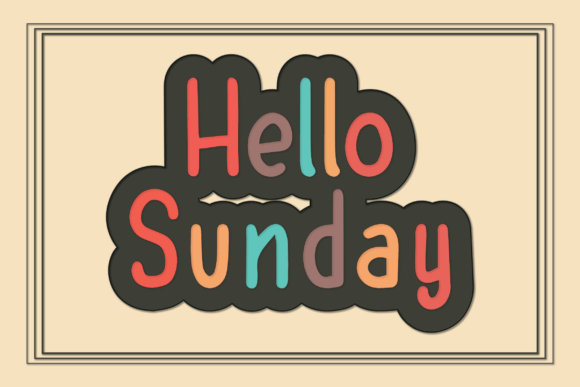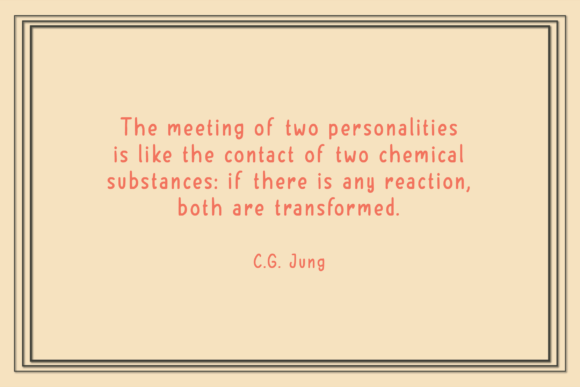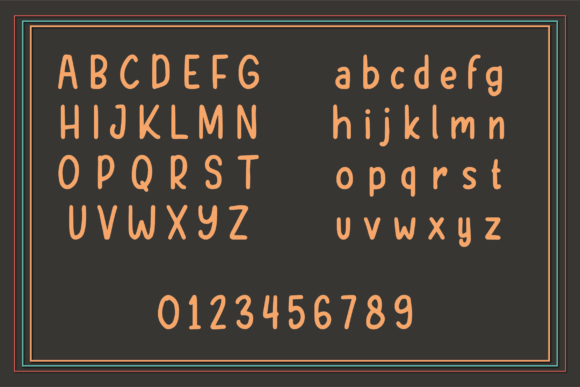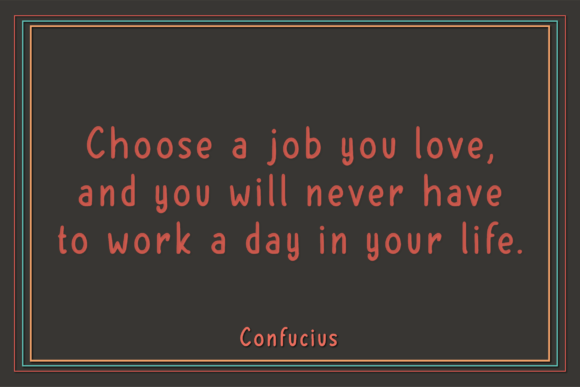
A Creative’s Dream Come True: The Hello Sunday Font
As designers, we’ve all been there – staring at a blank canvas, searching for the perfect font to bring our ideas to life. The moment of inspiration hits, and suddenly, a world of possibilities unfolds. For those who crave a handwritten touch, the Hello Sunday Font is the ultimate game-changer. This beautiful, attractive font is designed to evoke the feeling of a personal, handwritten note, making it perfect for quotes, diaries, books, posters, and invitations.
What sets Hello Sunday Font apart is its unique, natural curves that add a touch of personality to any design. Whether you’re a seasoned designer or just starting out, this font is a valuable addition to your toolkit. Its versatility makes it an essential element for any project, and its beauty is sure to leave a lasting impression on your audience.
Hello Sunday Font Key Features
- Unique Characteristics: The font features a unique, modern design with a subtle blend of elegance and playfulness, making it suitable for a wide range of creative projects.
Hello Sunday Font Review
I recently had the chance to work with the Hello Sunday Font, and I must say it’s a lovely addition to any design project. Here are some of the things that caught my eye:
- ✨ Unique and elegant design: The Hello Sunday Font has a distinctive style that sets it apart from other sans-serif fonts. It’s perfect for creating a sense of sophistication and elegance in your designs.
- ✨ High legibility: The font is highly legible, making it easy to read even in smaller sizes. This is a must-have for any font, especially for body text.
- ✨ Versatile: The Hello Sunday Font can be used for a wide range of projects, from corporate identities to creative designs. Its versatility makes it a great addition to any font collection.
- ⚠️ Limited character set: The Hello Sunday Font has a relatively limited character set, which may not be suitable for projects that require a wide range of special characters.
- ⚠️ Not ideal for small text: While the font is highly legible, it may not be the best choice for small text sizes. The letters can become blurry and difficult to read at very small sizes.
Overall, the Hello Sunday Font is a beautiful and elegant font that can add a touch of sophistication to any design project. While it may have some limitations, it’s definitely worth considering for your next design project.
The Hello Sunday font is perfect for creating modern and elegant designs. Some common use cases include:
– Headings and titles in branding materials
– Custom typography elements in marketing materials
– Elegant headings in wedding invitations and stationery
– Modern and sleek typography in web design
Alternatives to Hello Sunday Font for Designers
The Great Vibes font is a modern, elegant script font that works well for titles, headings, and other design elements where a touch of sophistication is needed. It’s particularly suitable for fashion, beauty, and lifestyle brands. Compared to Hello Sunday Font, Great Vibes Font has a more refined and polished look, making it ideal for high-end or luxury brands.
Pacifico is a beautiful, handwritten font that exudes a sense of relaxation and tranquility. It’s perfect for beach-themed designs, travel websites, or any project that requires a laid-back, summery vibe. In contrast to Hello Sunday Font, Pacifico Font has a more organic and free-spirited feel, making it ideal for projects that need a carefree, beachy atmosphere.